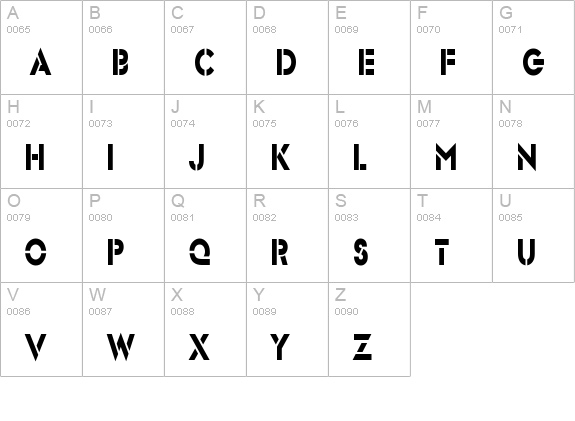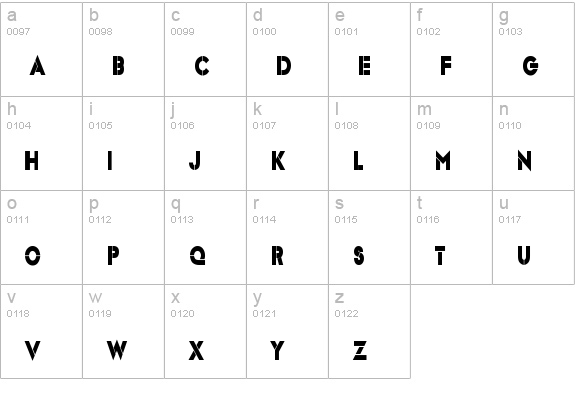
Templett Condensed Bold is a strong, high-contrast, condensed-width variant in the Templett typeface family \xE2\x80\x94 well suited to headlines, attention-grabbing titles, and strong calls-to-action.
Templett Condensed Bold font captivates with its bold and powerful presence, making it the perfect choice for designs that need a strong and eye-catching typography. This font exudes confidence and sophistication, elevating any project it is used in. With its condensed letterforms, Templett Condensed Bold font allows for maximum impact in limited space. Whether it's a headline, logo, or any other design element, this font commands attention and leaves a lasting impression. But what makes Templett Condensed Bold font even more appealing is that it is freely available to download at FontsMarket.com. This means that you can enhance your designs with this remarkable font without any cost. It's an incredible opportunity to add a touch of bold elegance to your creations, all while staying within your budget. So why wait? Download Templett Condensed Bold font today from FontsMarket.com and take your designs to the next level. Unleash the power of boldness and make a statement that won't go unnoticed.